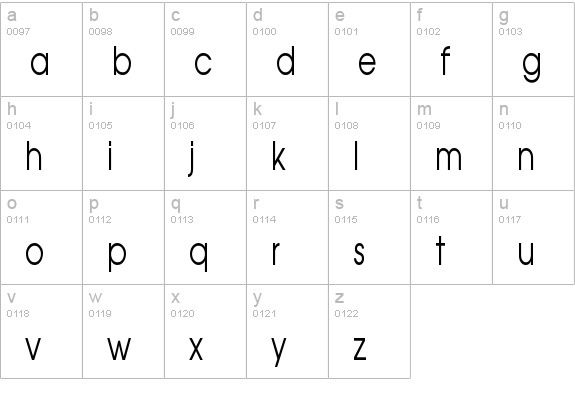
Atilla Thin Normal Font Details
Atilla Thin Normal is a delicate, low-contrast variant in the Atilla typeface family \xE2\x80\x94 well suited to fashion editorial, minimal branding, and high-contrast display.
Atilla Thin Normal font is a sleek and elegant typeface that exudes modern sophistication. With its clean lines and minimalist design, this font is perfect for a wide range of projects, from branding to editorial design. The thin weight of the font adds a touch of delicacy, making it ideal for creating a refined and polished look. Best of all, Atilla Thin Normal font is available for free download at FontsMarket.com. This means you can access this stylish and versatile font without having to spend a penny. Whether you're a designer looking to add a contemporary flair to your work or a business owner in need of a fresh new font for your branding, Atilla Thin Normal is the perfect choice. Download it today and elevate your designs with this sophisticated typeface.